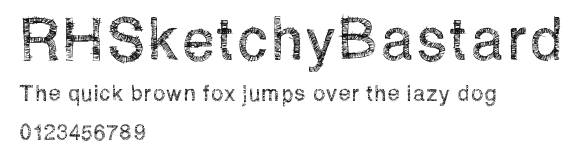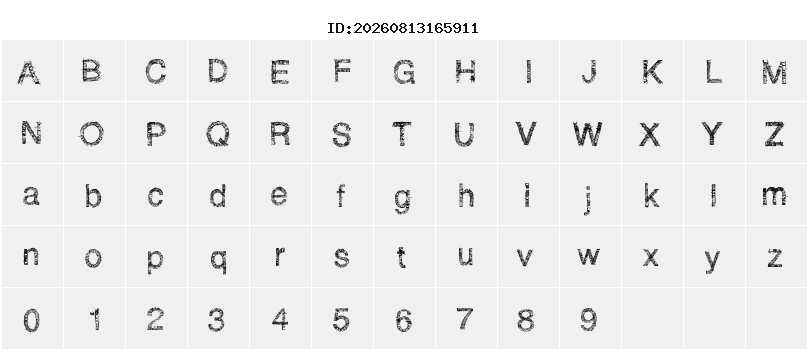
RHSketchyBastard Preview
• Font Name: RHSketchyBastard
• Full Font Name: RHSketchyBastard
• Character Count: 85
About RHSketchyBastard.ttf
RHSketchyBastard.ttf is a modern, elegant sans-serif font designed for ultimate readability and visual harmony. Perfect for branding, headlines, web design, and print materials.